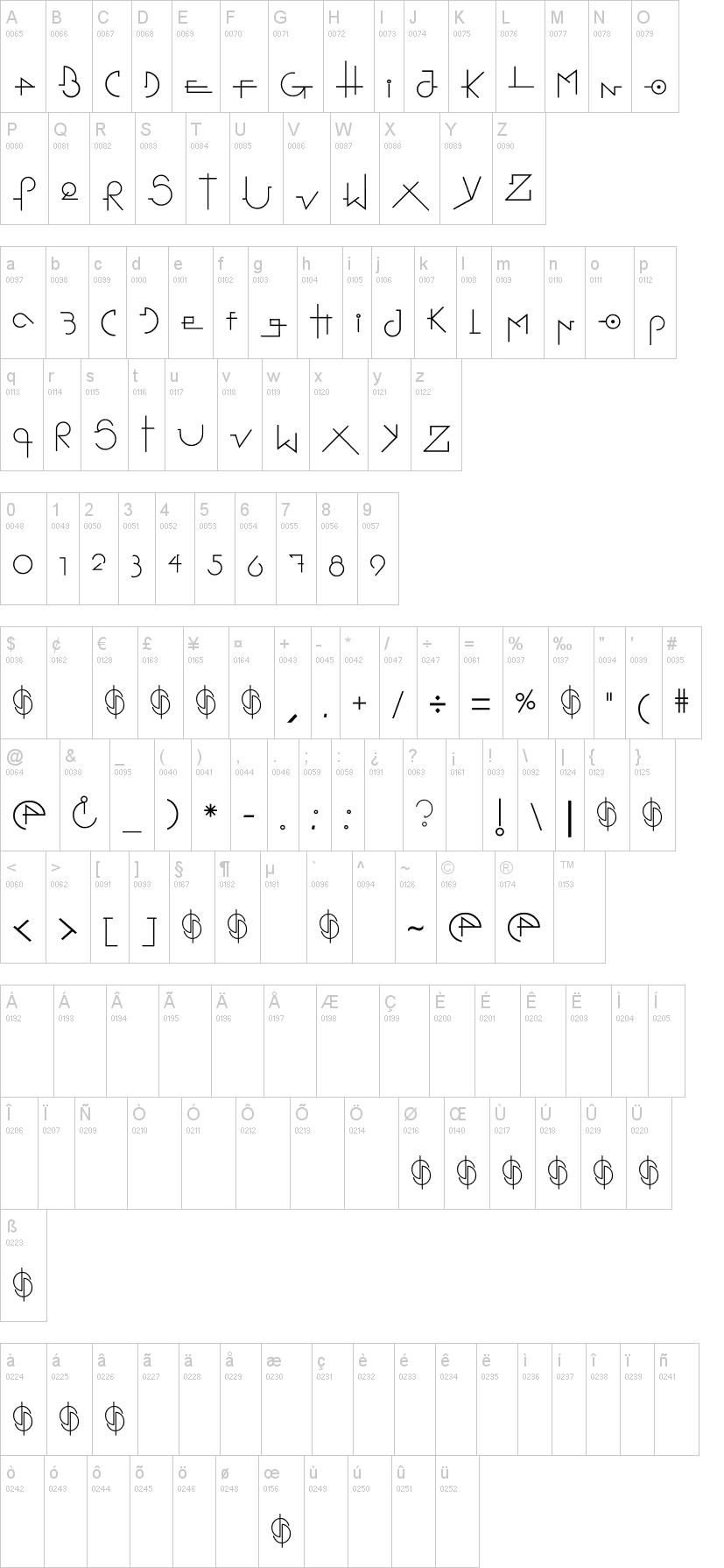
Stretched Signature Flex
This font was conceived according my self signature that you can see in all my artwork in my blog as well street art writings, and the it can be used in diverses ways and artstylles, it can be used of the simplest the most sophisticated work until. Its more important characteristic is the flexibility of its connections, for being linked becomes infinitely flexible being able to transpose the limitations of any space.